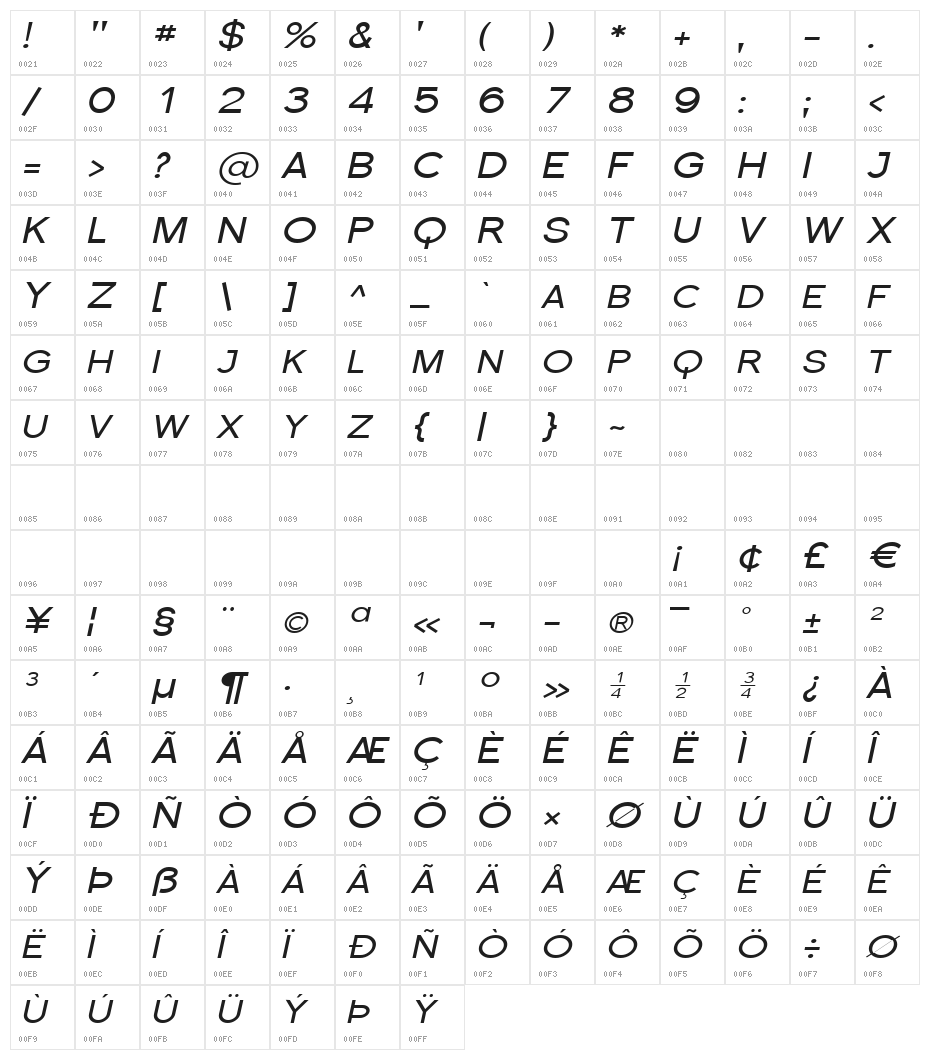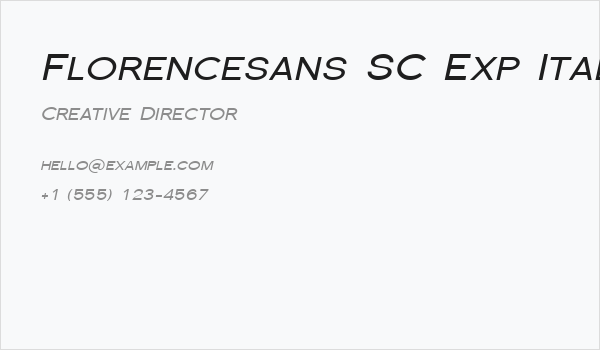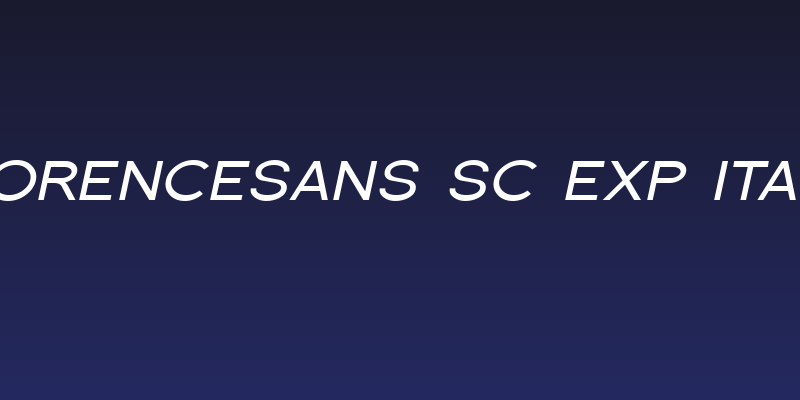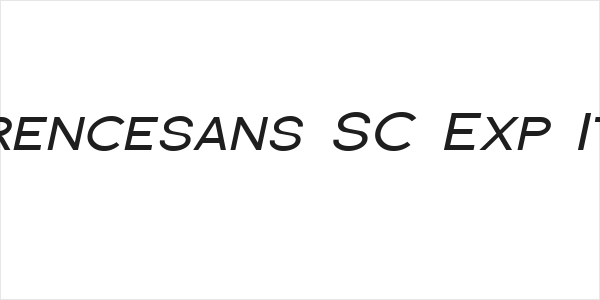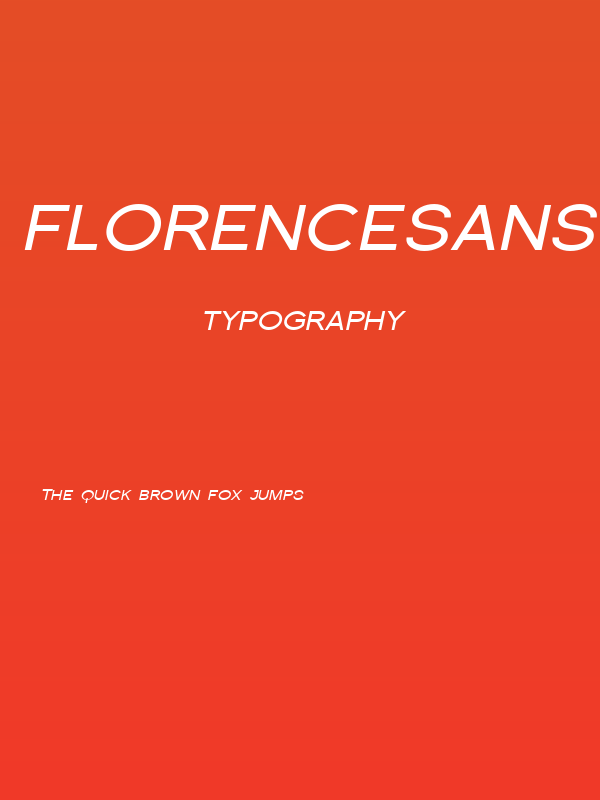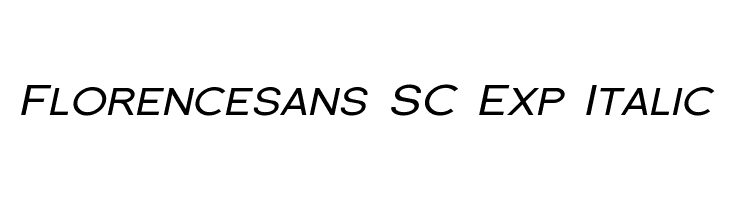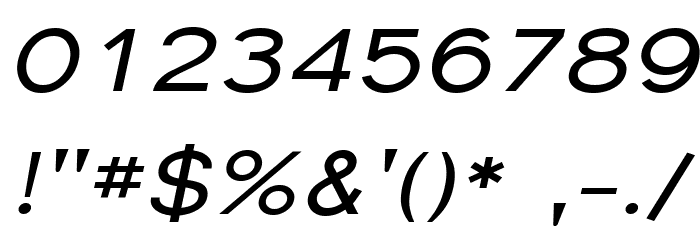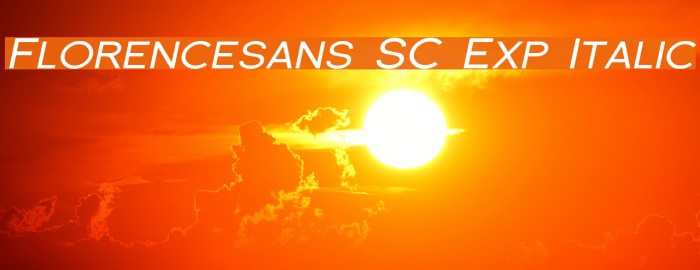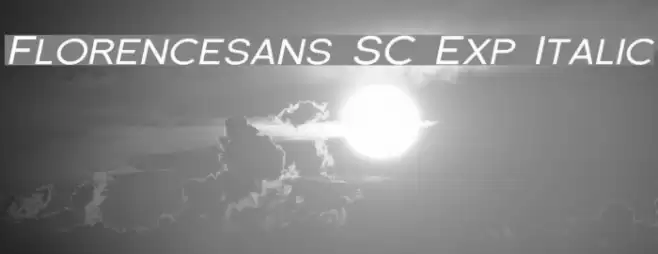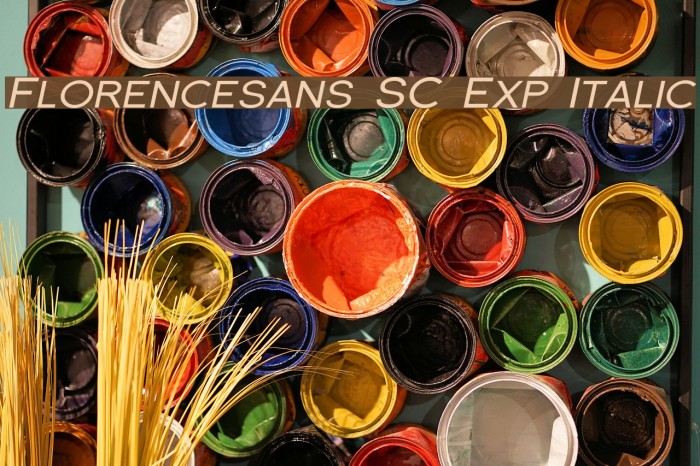
Florencesans SC Exp Italic Font
Florencesans SC Exp Italic Description
This font features a sleek, modern sans-serif style with an expanded width and italicized form. The characters are clean and streamlined, offering a contemporary aesthetic that is both professional and approachable. The italic slant adds a dynamic and forward-moving feel, making it suitable for projects that require a sense of motion or progress. The expanded width provides ample spacing, enhancing readability while maintaining a stylish appearance. The font includes a full set of uppercase and lowercase letters, numerals, and a variety of special characters, making it versatile for various design needs.
| Use Case | Headlines, Logos, Advertising |
| Proposed Projects | Ideal for branding, advertising, and editorial design where a modern and dynamic look is desired. |